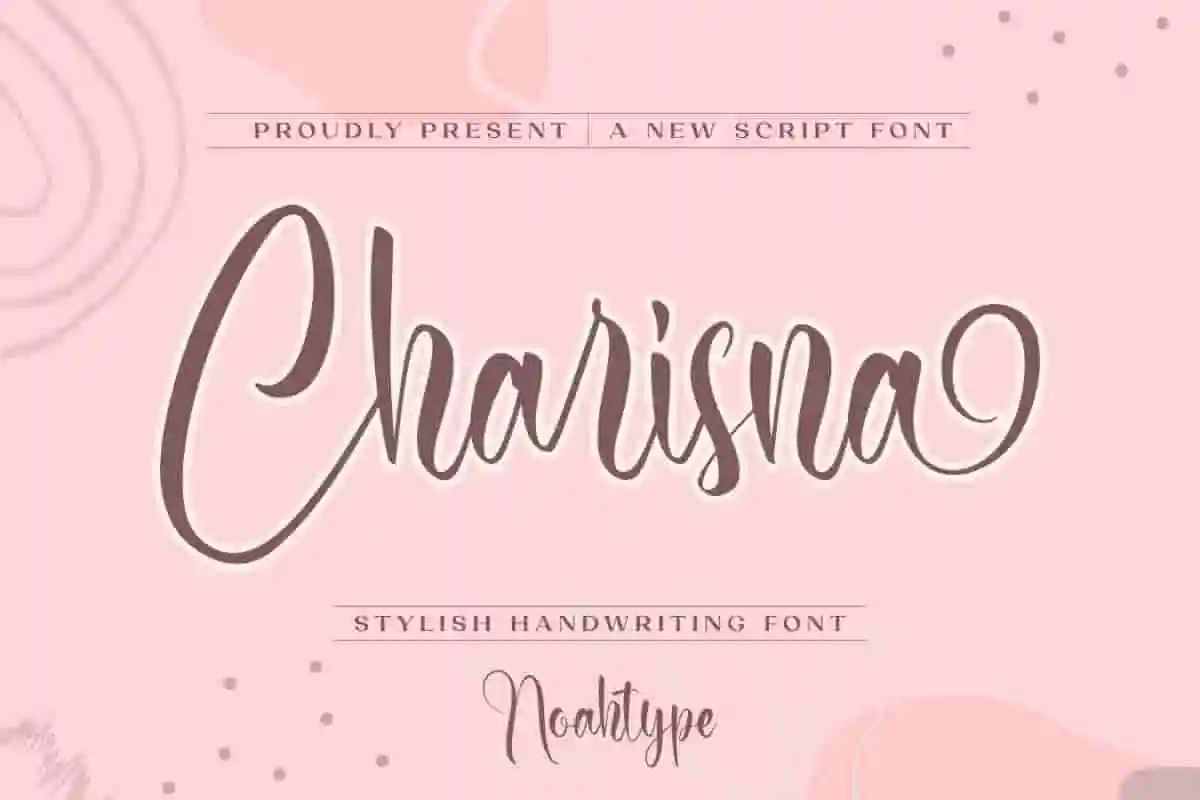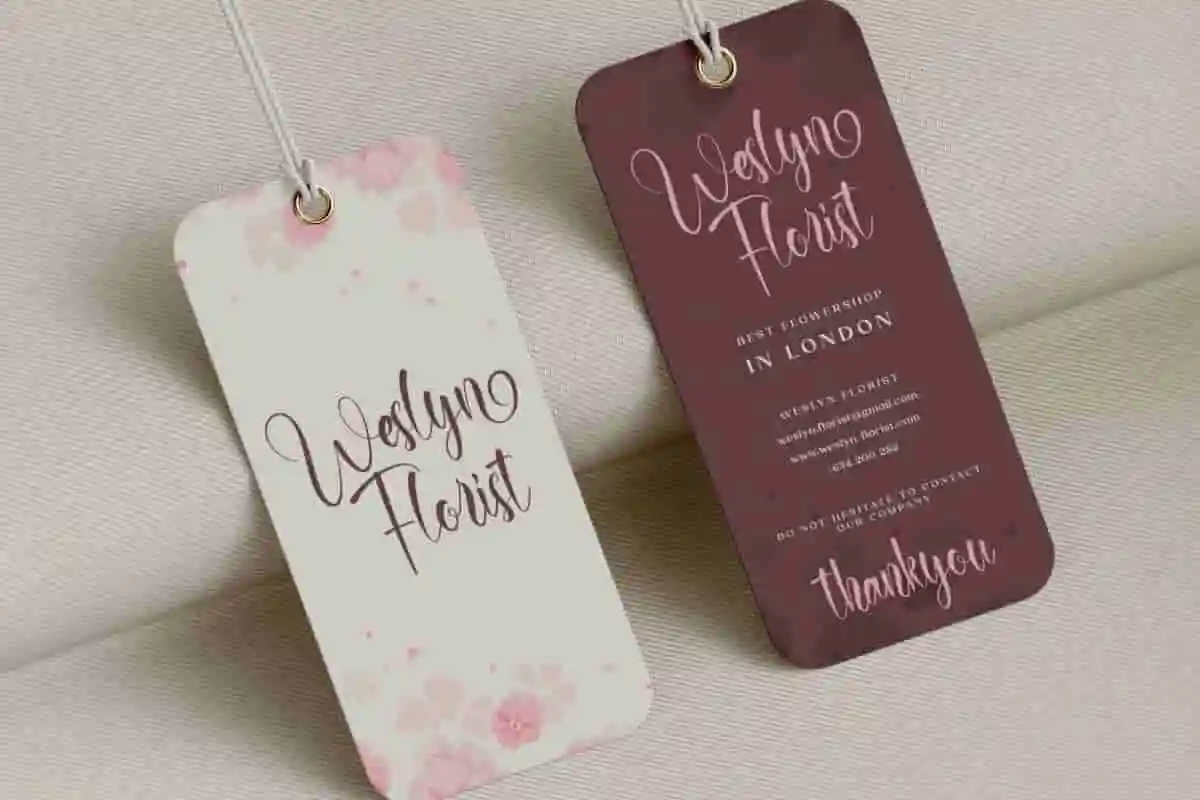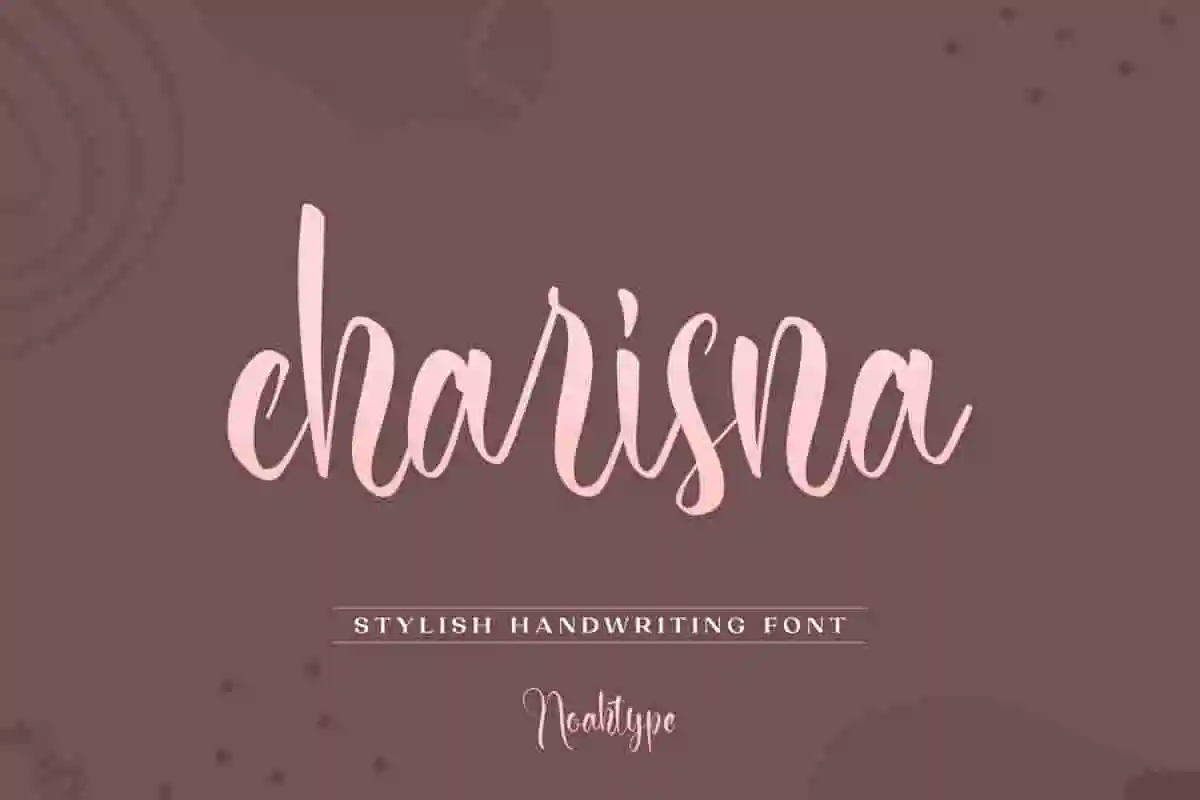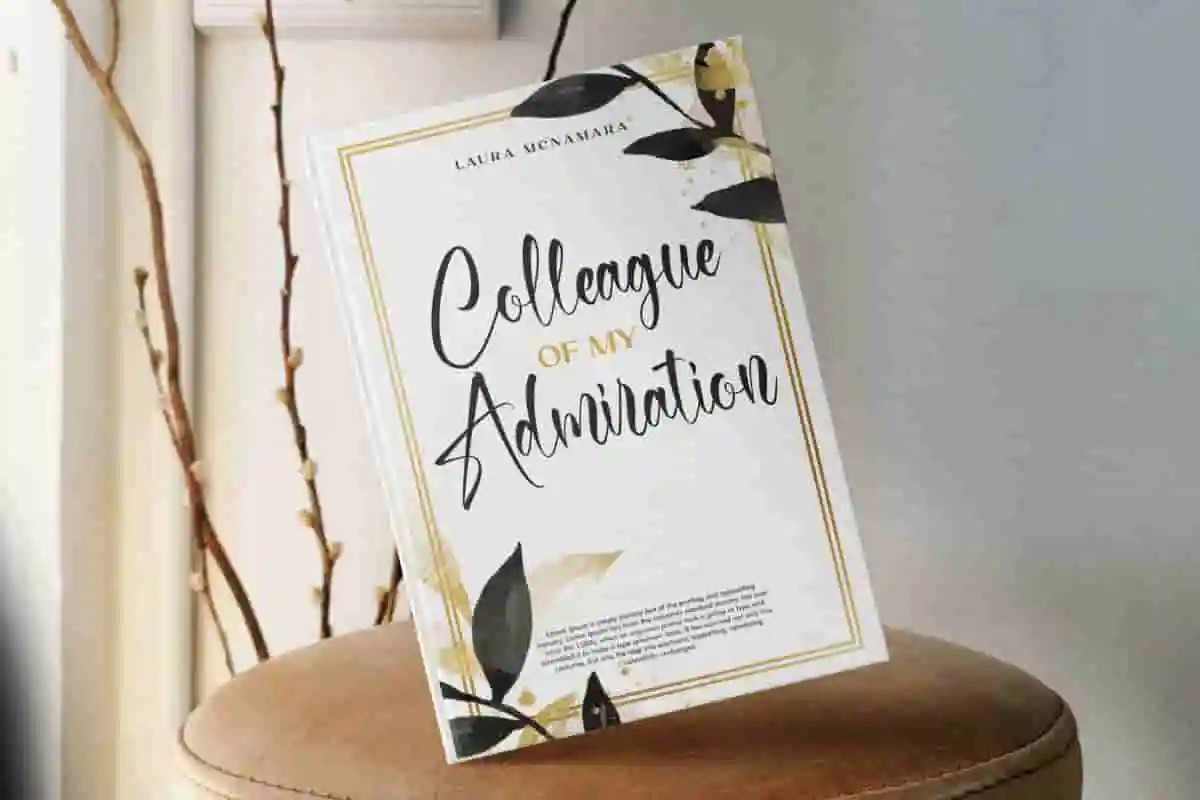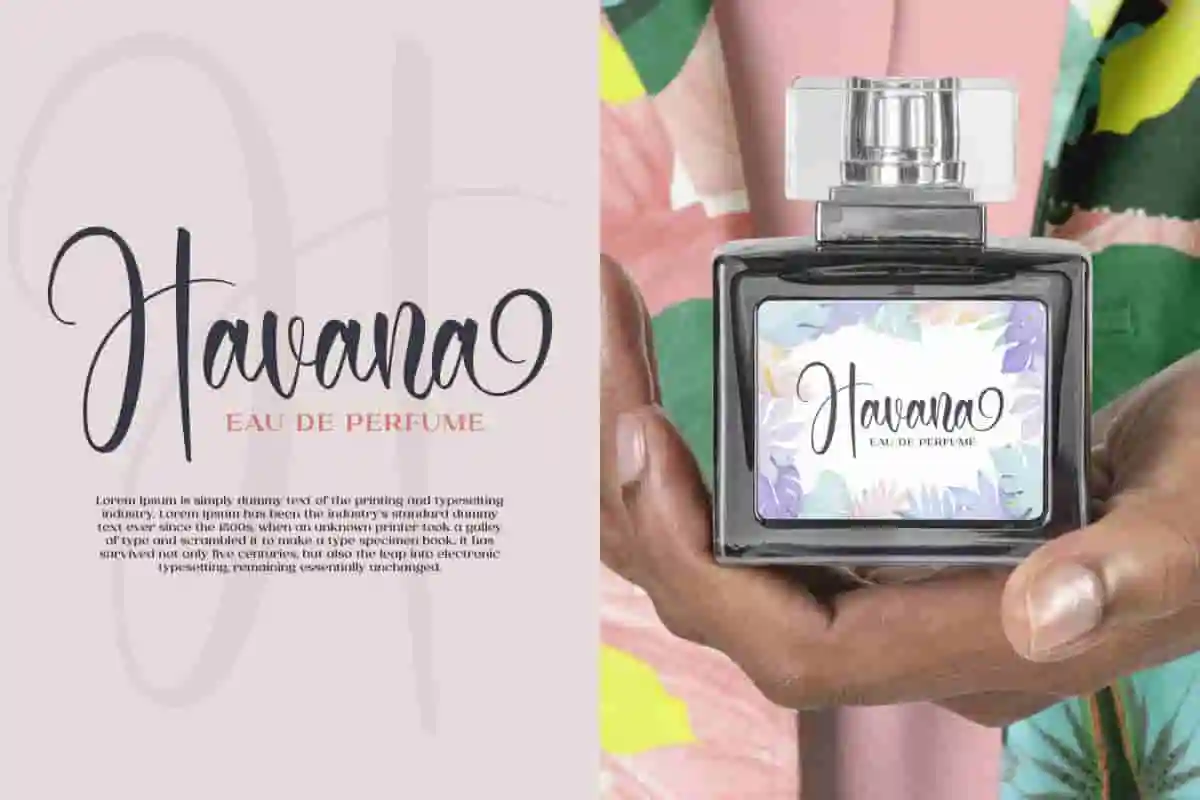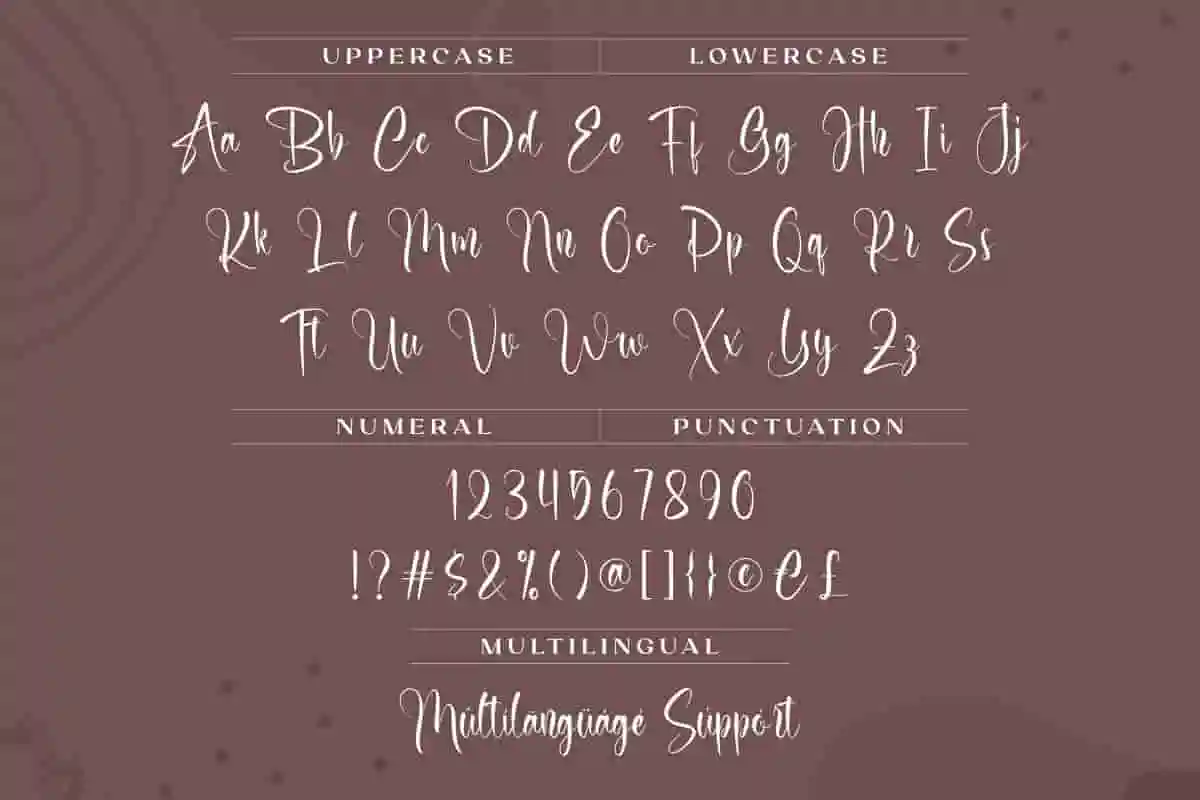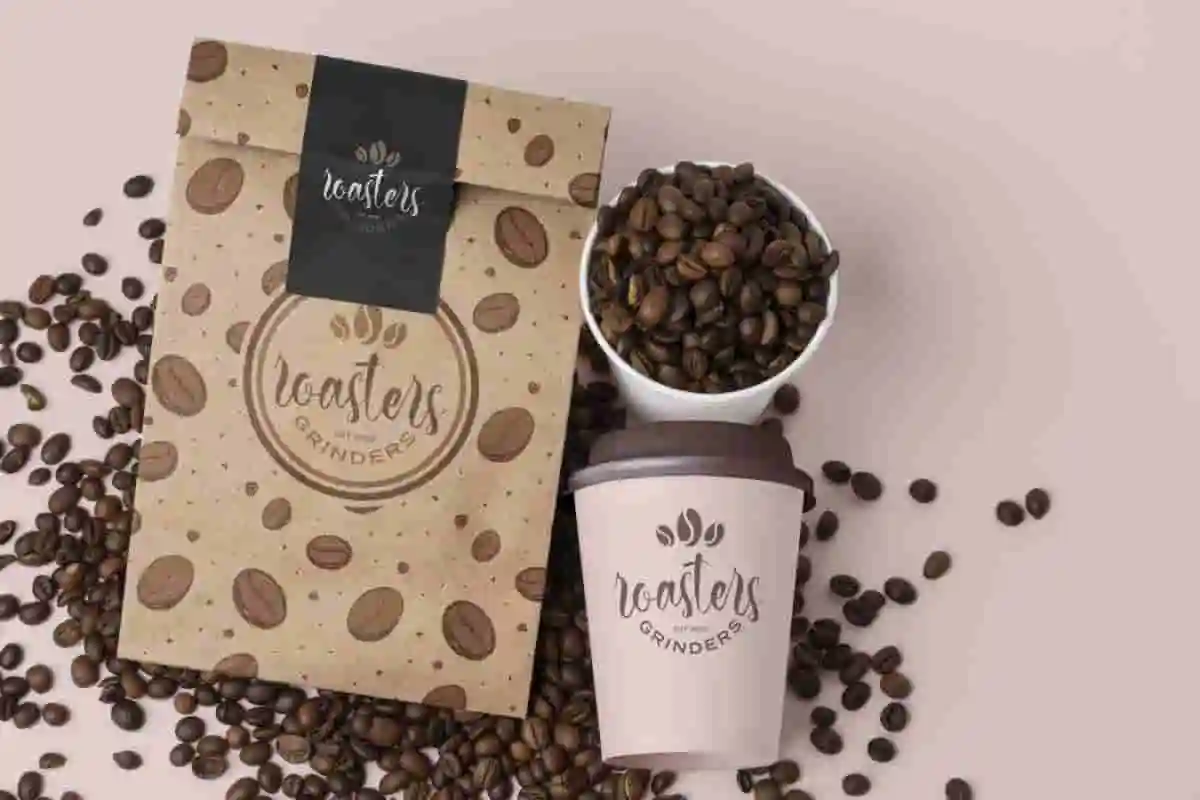
Charisna Font is a stylish handwriting font, exclusively designed by NoahType. The sheer lines flow beautifully to make any design dazzling. It will be suitable for many industries such as accessories, apparel, author, coffee shop, craft, homeware, perfume, salon and spa, wedding organizer, and more!
Charisna Font includes full set of Uppercase and Lowercase Basic Characters, Numerals and Punctuation. Also it contains alternate and ligature characters to add aesthetics to every design created such as brand logo, business card, custom design, invitation, label, product packaging, quote, title, web page, etc.
Crafted with care, Charisna Handwriting Font is versatile and works beautifully for wedding invitations, branding, logos, greeting cards, social media posts, and product packaging. Its fluid design and graceful lines bring a personal, authentic feel that connects emotionally with your audience. Whether you’re a designer, entrepreneur, or creative enthusiast, Charisna makes your work stand out.